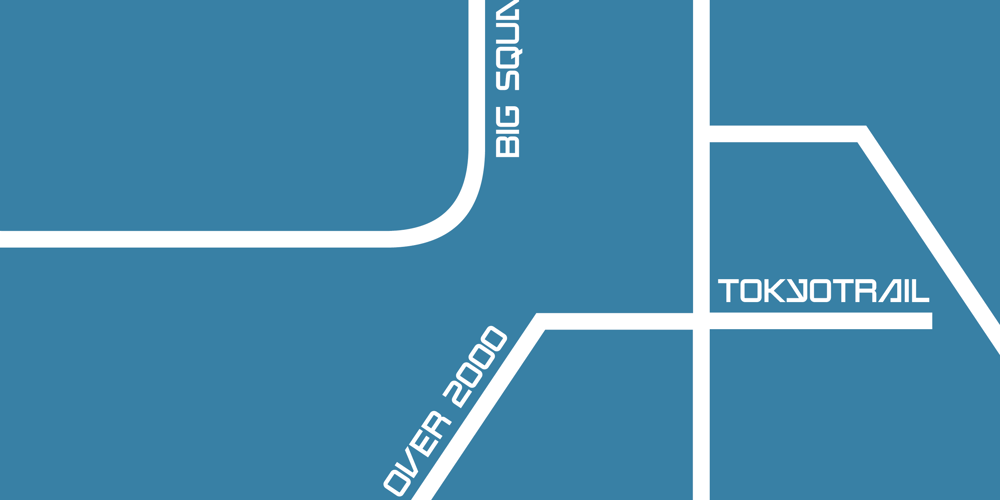
Tokyotrail Font Family was designed by Ryoichi Tsunekawa and published by Dharma Type. Tokyotrail contains 4 styles and family package options. Tokyotrail is inspired by the capital of Japan. Over 2,000 square kilometers to explore. Lines run vertically horizontal and aslant. Square and geometric form attracts notice in various scenes.